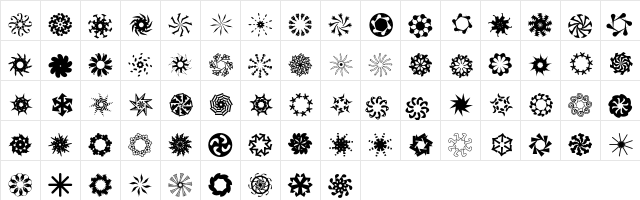
AleOrnamentsRotatoLL Regular
Design Context for AleOrnamentsRotatoLL Typeface
AleOrnamentsRotatoLL is built around its visual character rather than neutral utility — its distinctive forms are designed to make an impression at display sizes.
Font Pairing: Pair with a clean neutral sans-serif for body copy to let AleOrnamentsRotatoLL's character lead without overwhelming the composition.
Pro Tip: Use AleOrnamentsRotatoLL exclusively at display sizes — it was designed to be seen, not read at length. Let a neutral companion handle body copy.